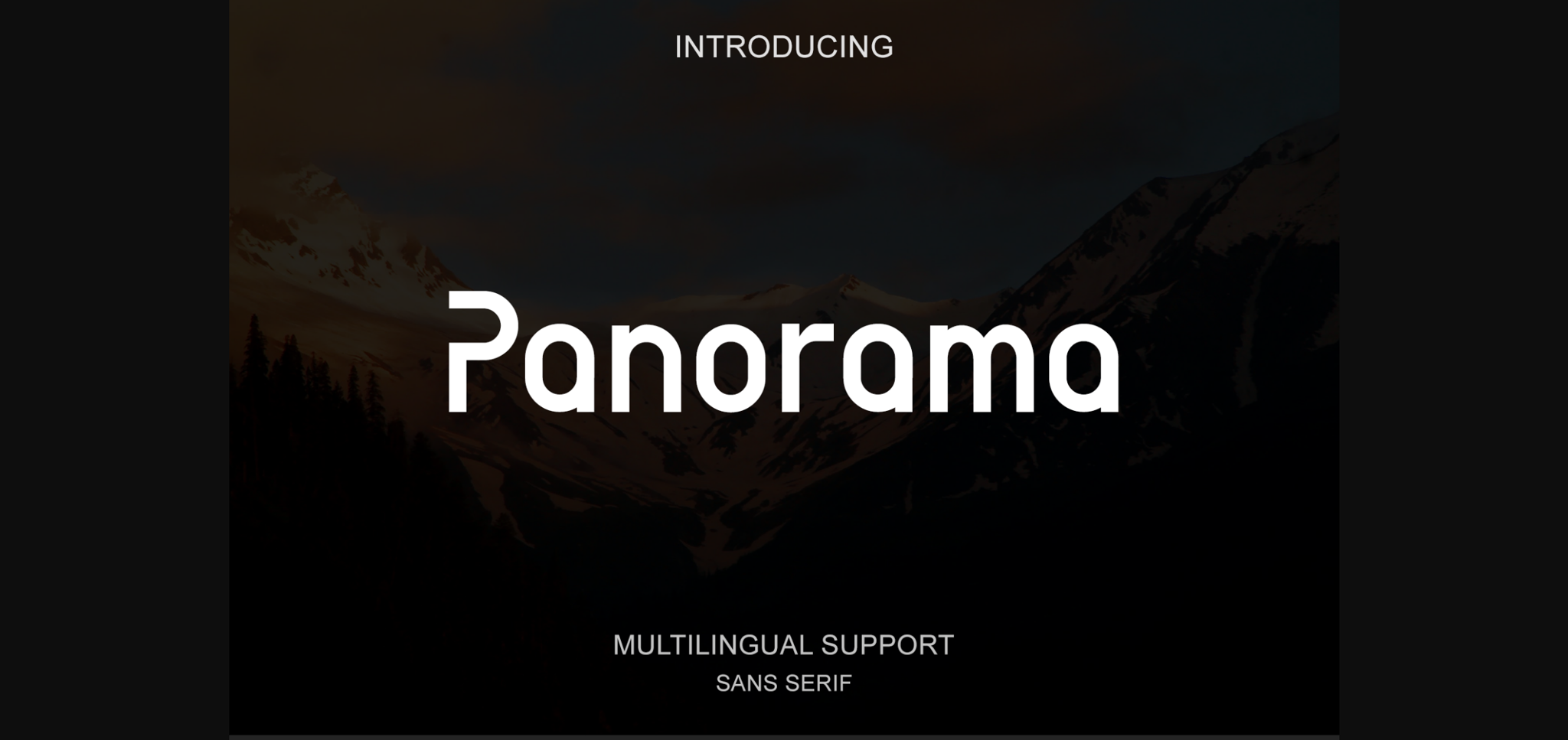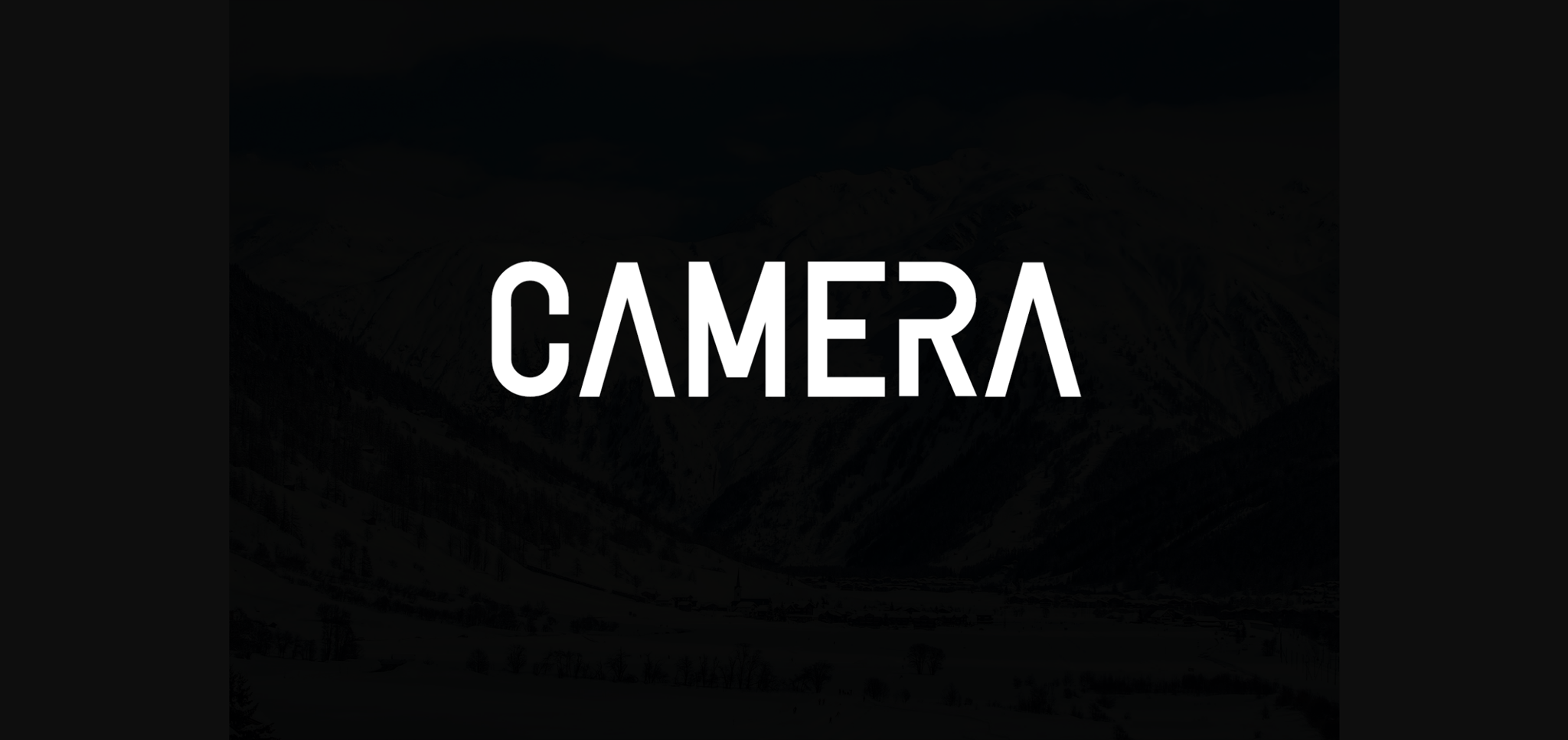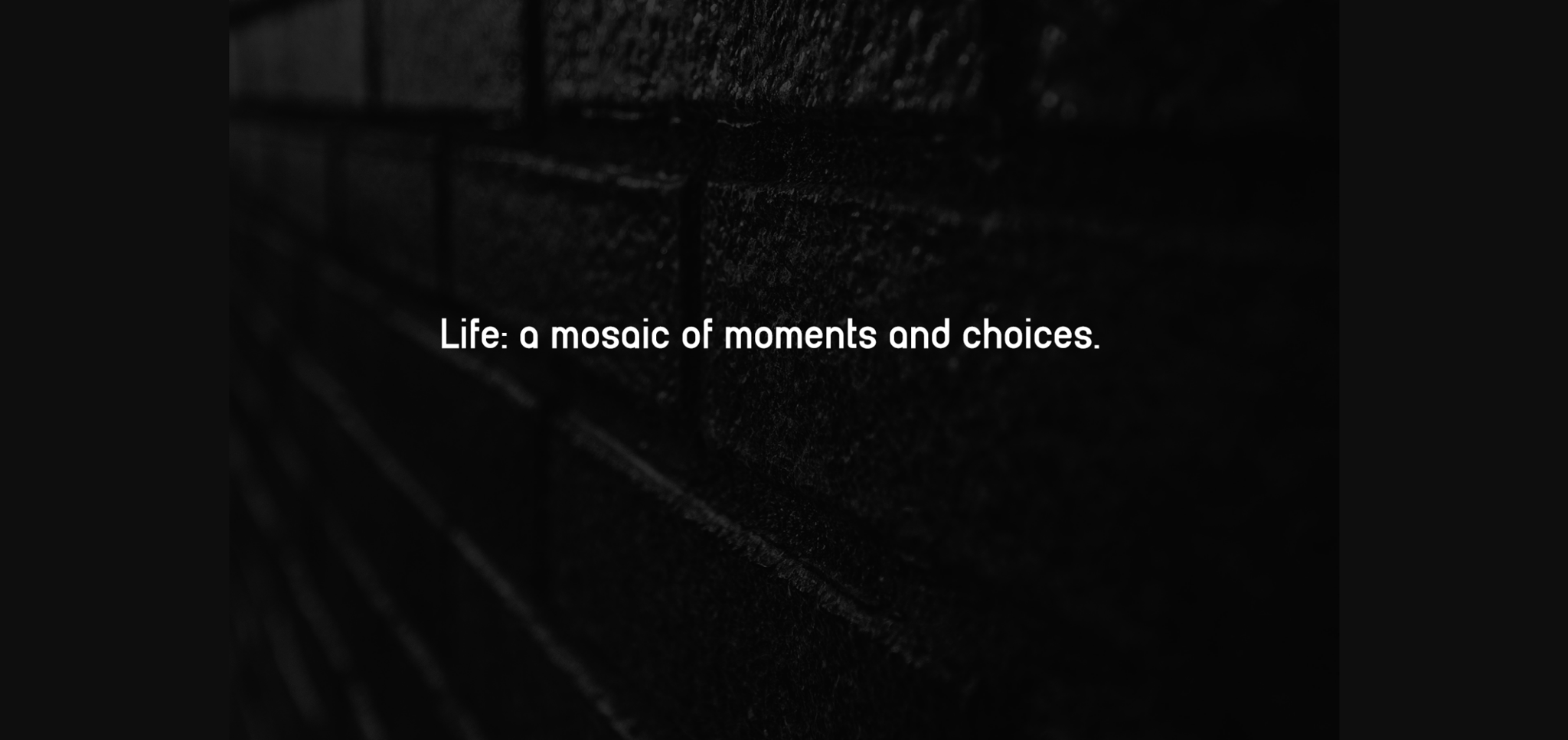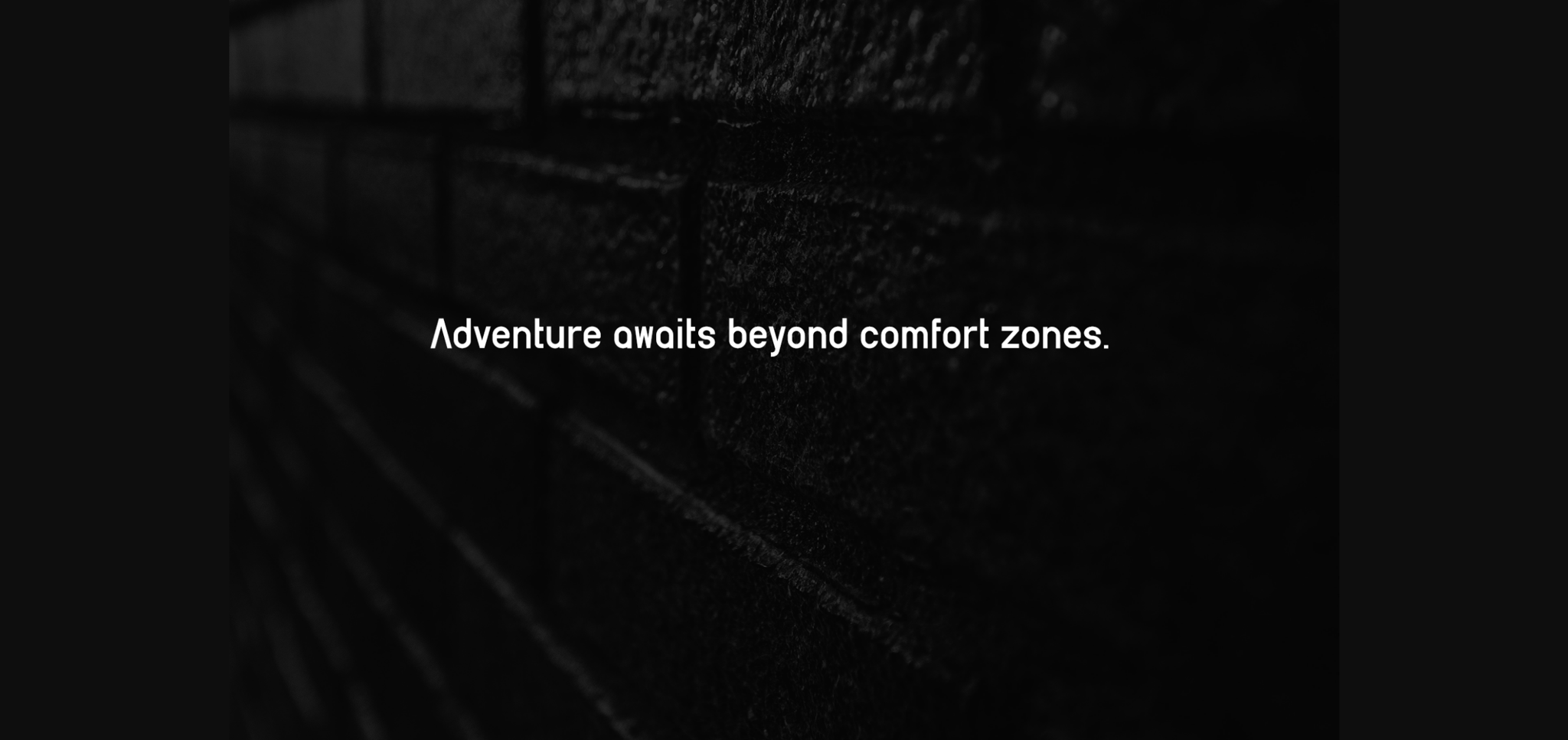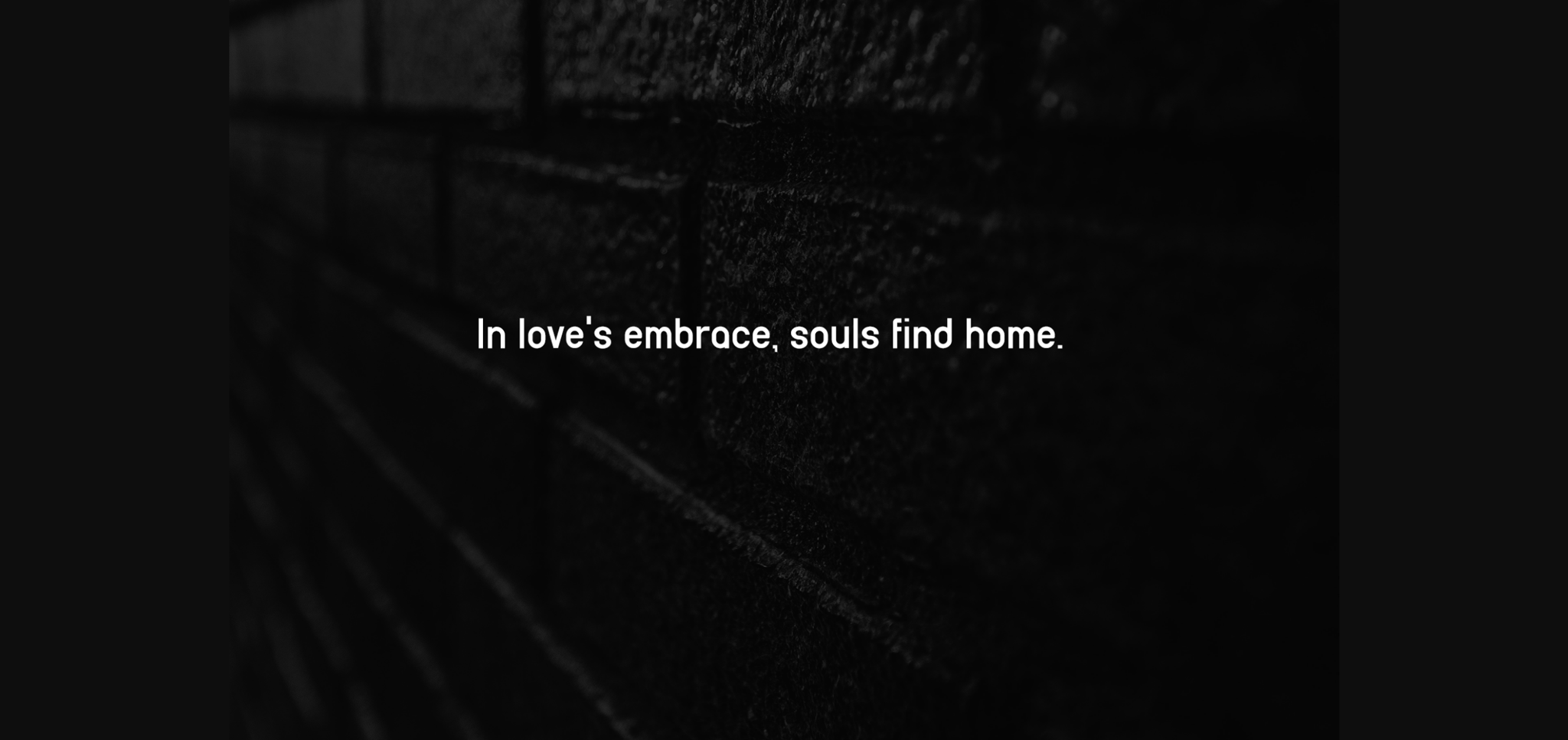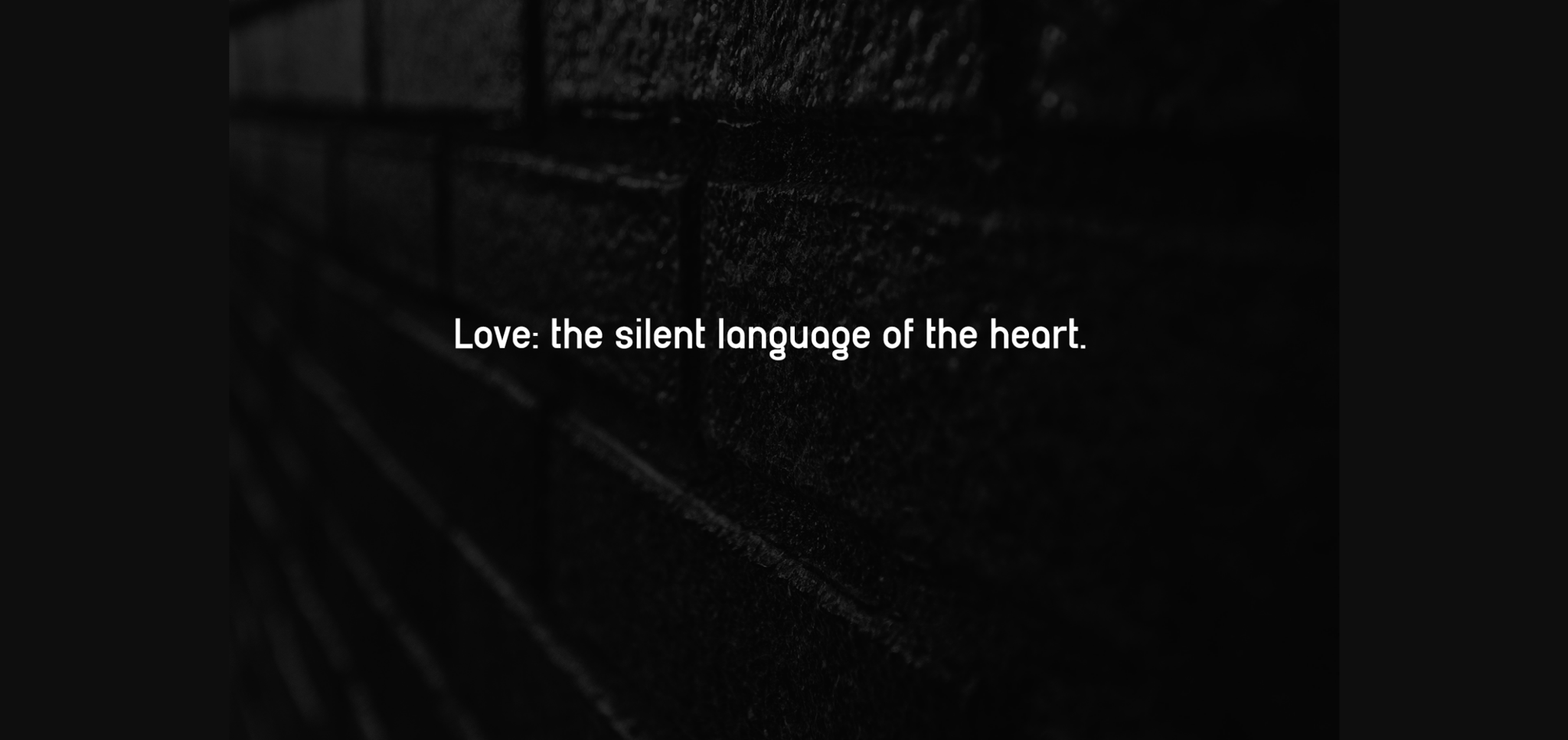
Panorama Font
About Panorama Font
Panorama is a Modern Sans Serif font. Inspired by the beauty of nature. Suitable for any design needs, branding, logo, urban design, modern advertising design, Book/Cover Title, special events, adventures, headlines, clothing and more.